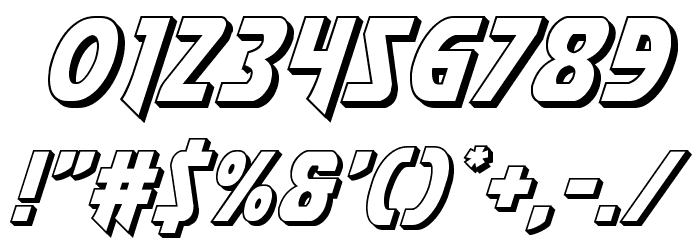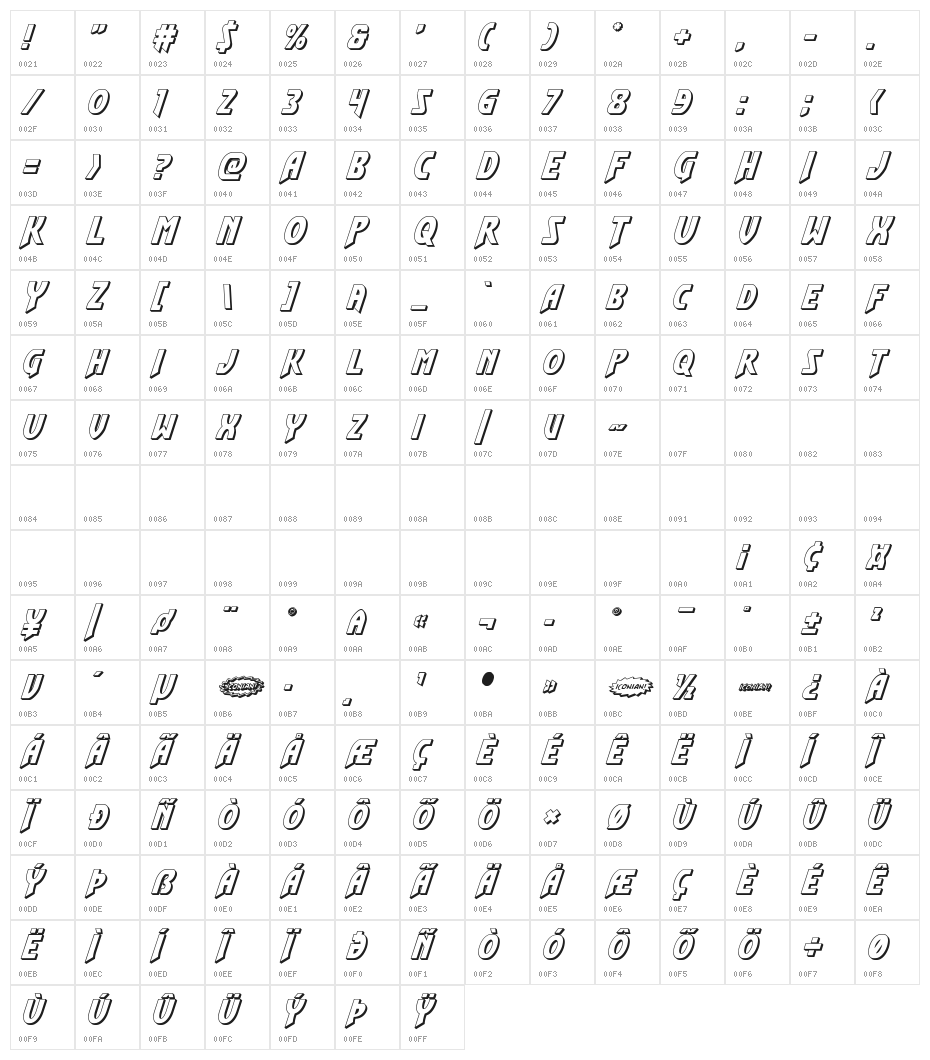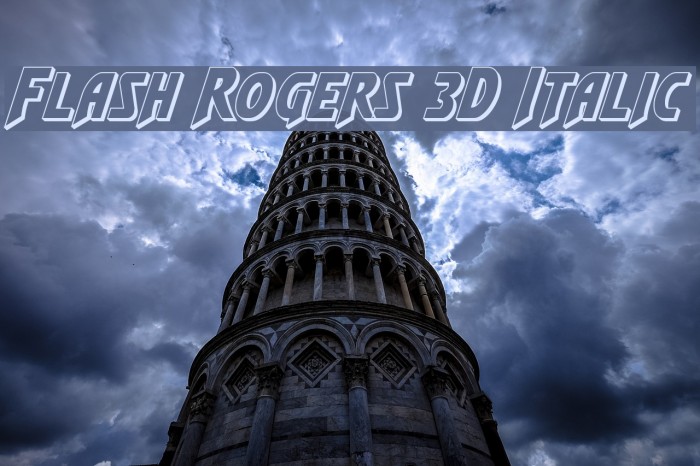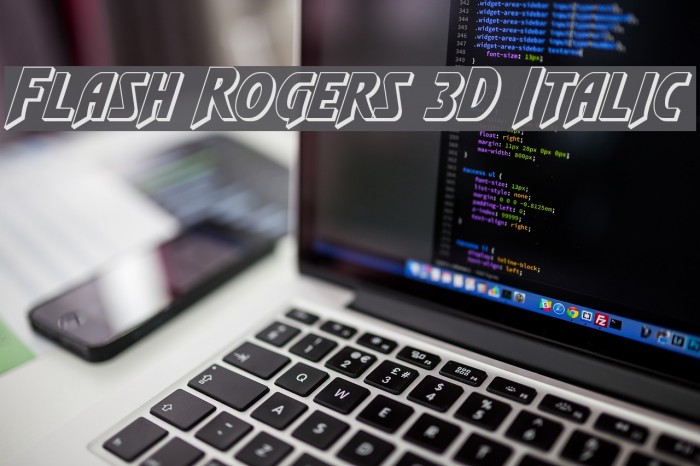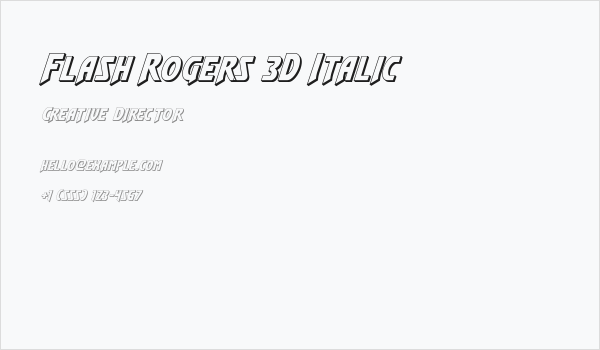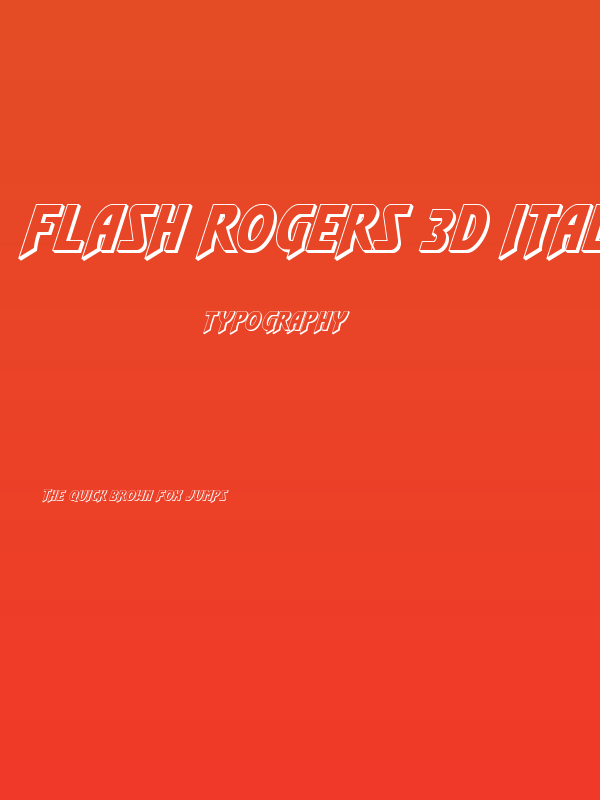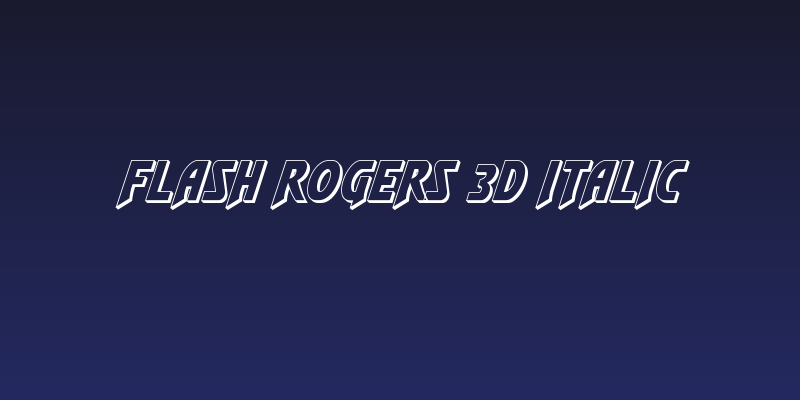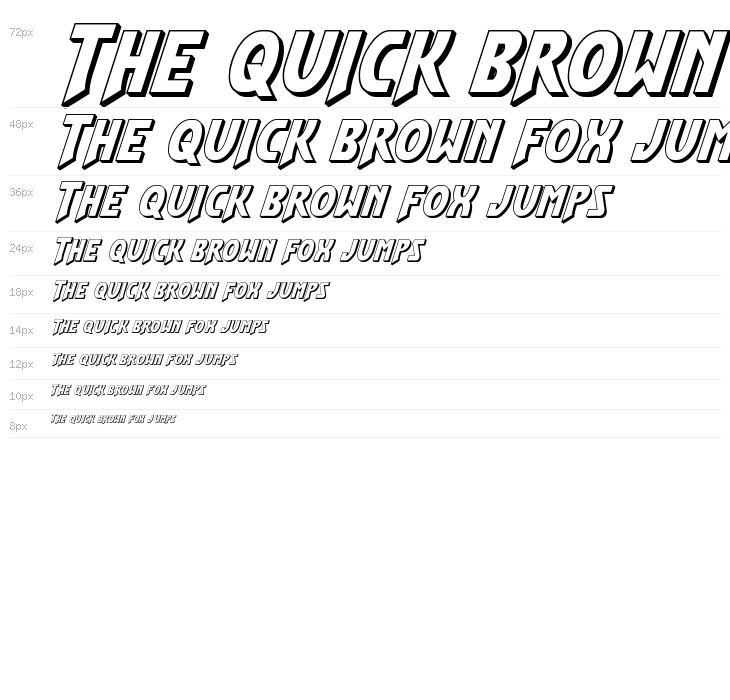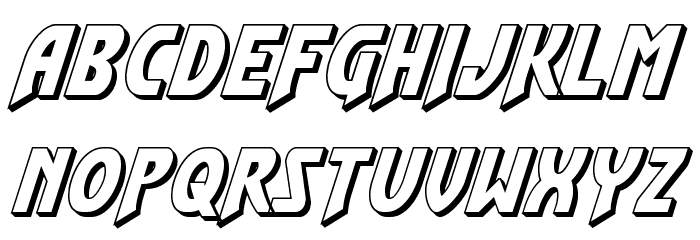
Flash Rogers 3D Italic Font
Flash Rogers 3D Italic Description
This font features a bold, dynamic 3D italic style that gives a sense of movement and energy. The letters are designed with a strong, angular structure, and the 3D effect is achieved through a shadow that creates depth. The uppercase and lowercase characters maintain a consistent style, with sharp edges and a slight slant that enhances the italic appearance. The numbers and special characters are equally bold and maintain the same 3D effect, making them stand out. This font is ideal for projects that require a striking and modern look, such as posters, headlines, and branding materials.
| Proposed Projects | Ideal for posters, headlines, branding, and any project needing a bold, modern look. |